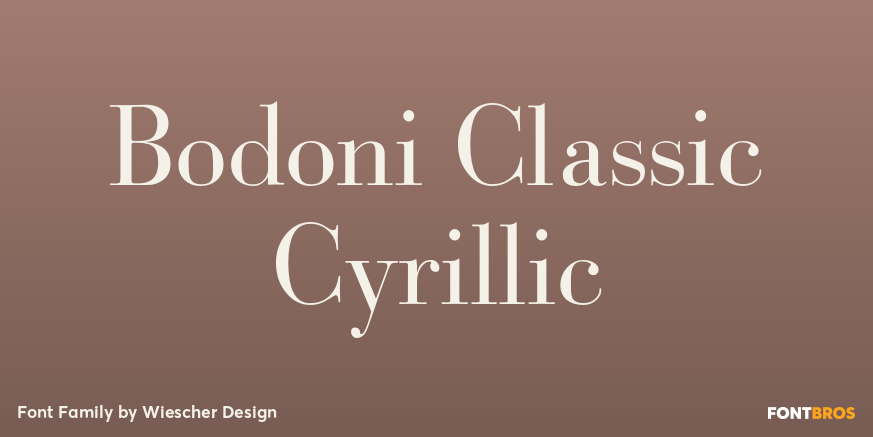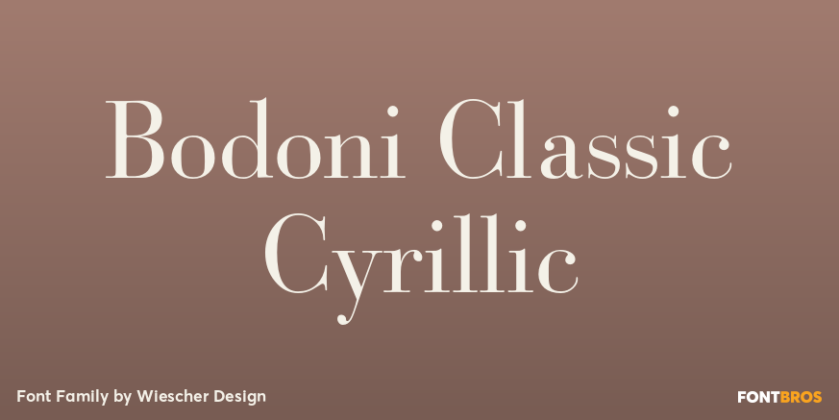
Bodoni Classic Cyrillic
One day shortly after Christmas 2004, the art-director of Vogue Moscow called me. Would I maybe make a Cyrillic version of my Bodoni Classic Text typeface? Well, since I had been thinking about doing it since a long time, this was the perfect reason…